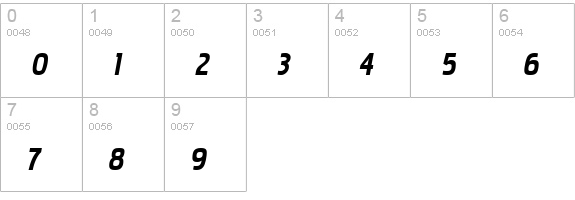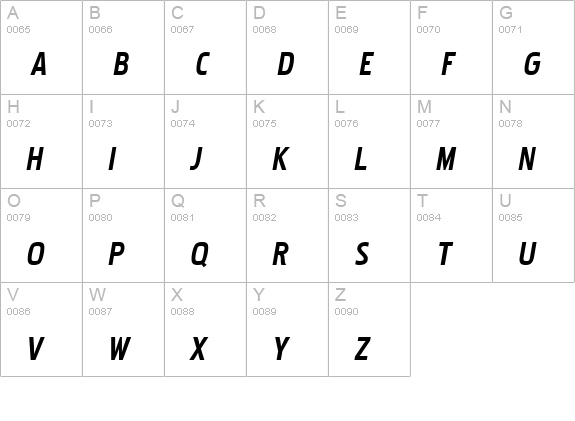
Pakenham Bold Italic Font Details
Pakenham Bold Italic is a strong, high-contrast, italic variant in the Pakenham typeface family \xE2\x80\x94 well suited to headlines, attention-grabbing titles, and strong calls-to-action.
Pakenham Bold Italic font exudes a sense of elegance and sophistication with its bold and slanted characters. Its striking design makes it perfect for creating eye-catching headings, titles, and branding materials. The unique italic styling adds a touch of flair and personality to any project, making a strong visual impact. What sets Pakenham Bold Italic font apart is that it is available for free download at FontsMarket.com. This means that you can access this stunning typeface without any cost, making it a valuable addition to your font collection. Whether you're working on a design project or looking to elevate your creative work, Pakenham Bold Italic font is a versatile choice that will make your text stand out with its bold and stylish appearance. Download it today and unleash your creativity with this captivating font.